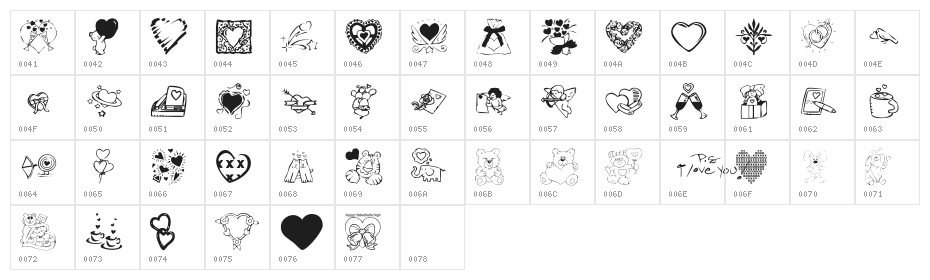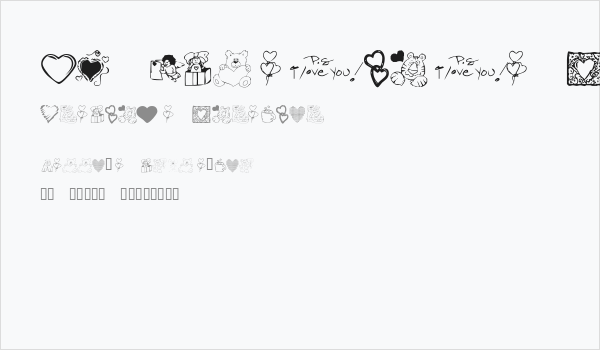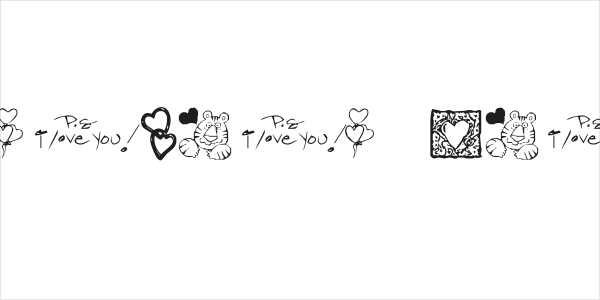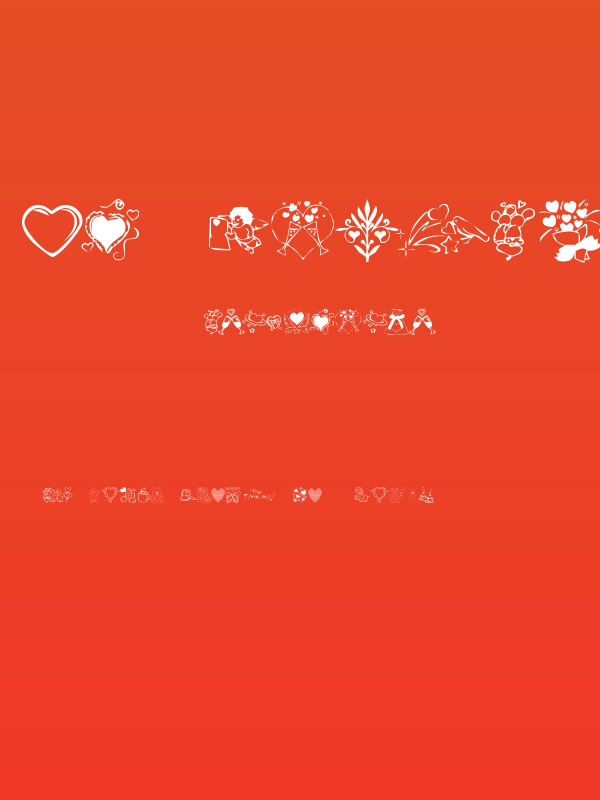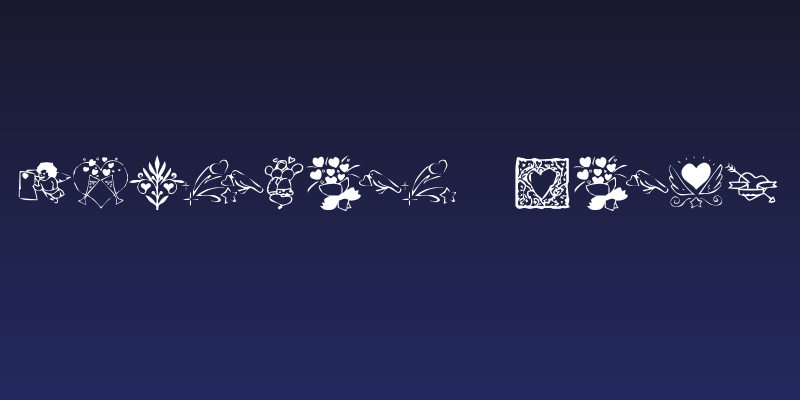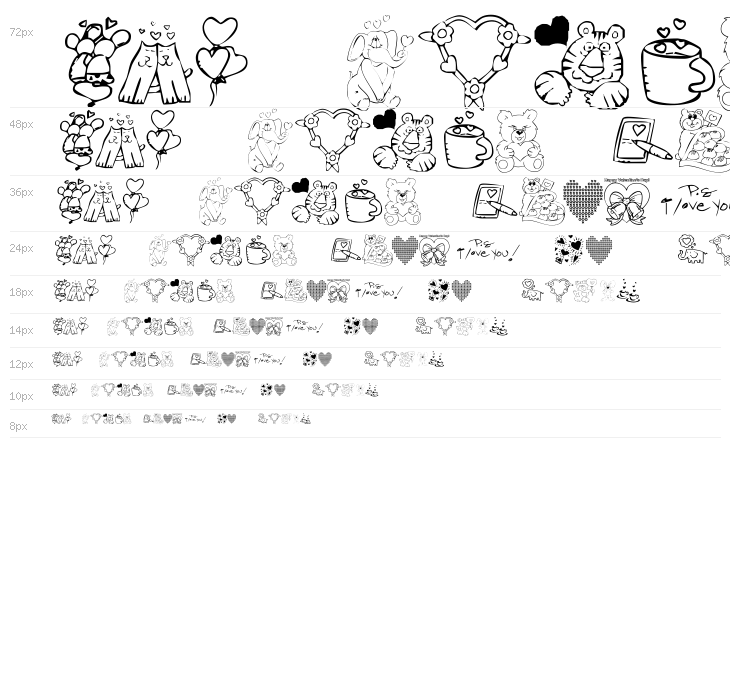
KR Valentine Dings 2002 Font
KR Valentine Dings 2002 Description
This collection features a variety of playful and romantic dingbats, each designed with a whimsical and charming aesthetic. The characters include hearts, flowers, cupids, and other love-themed symbols, making it perfect for Valentine's Day projects. The style is decorative and playful, with intricate details that add a touch of elegance and fun. Each symbol is unique, offering a wide range of options for creative expression. The designs are bold and clear, ensuring they stand out in any project.
| Use Case | Logos, Decorative elements |
| Proposed Projects | Ideal for Valentine's Day cards, wedding invitations, romantic scrapbooking, and decorative crafts. |